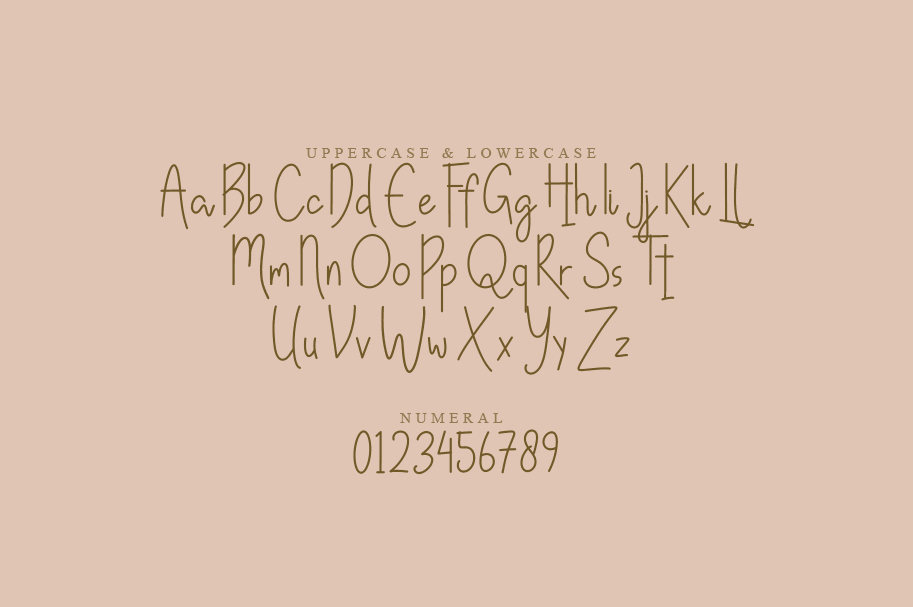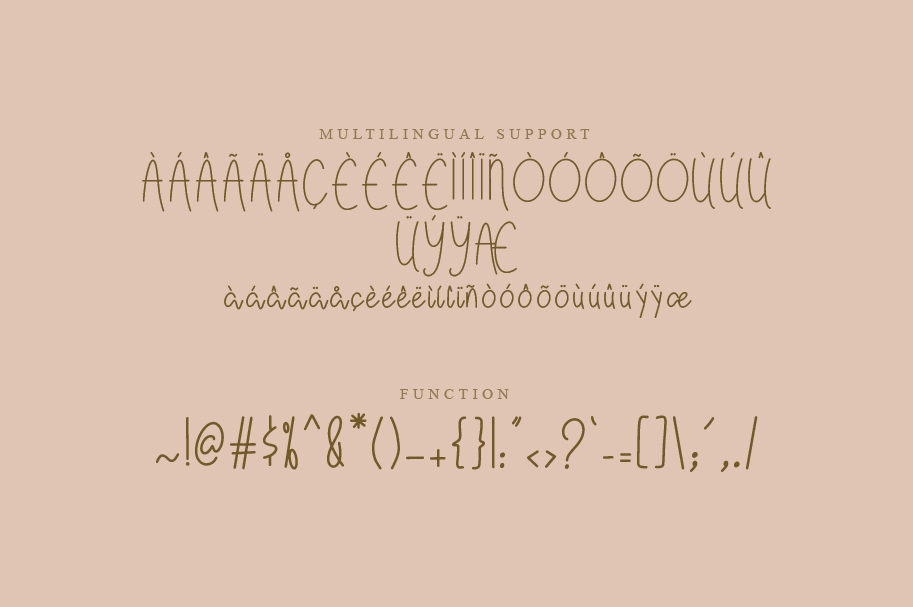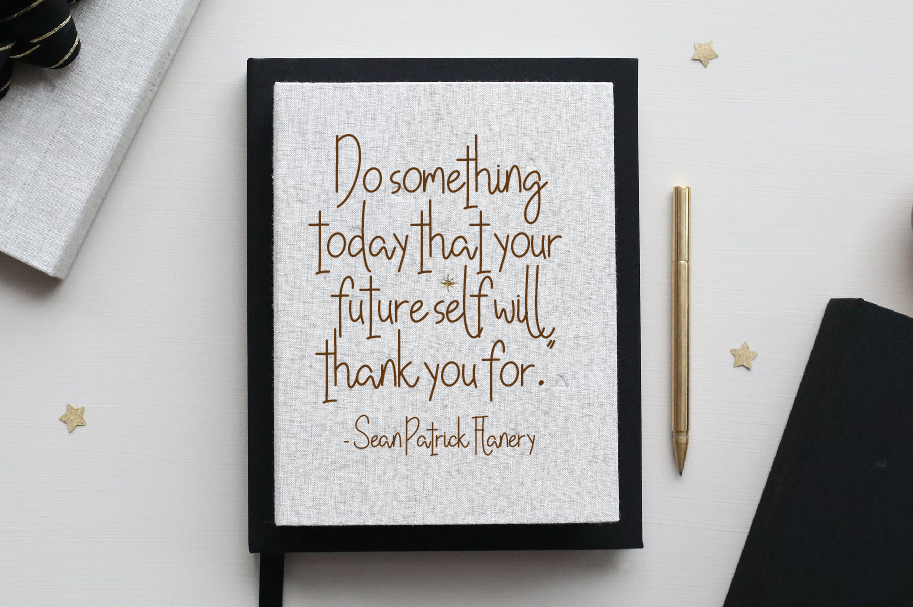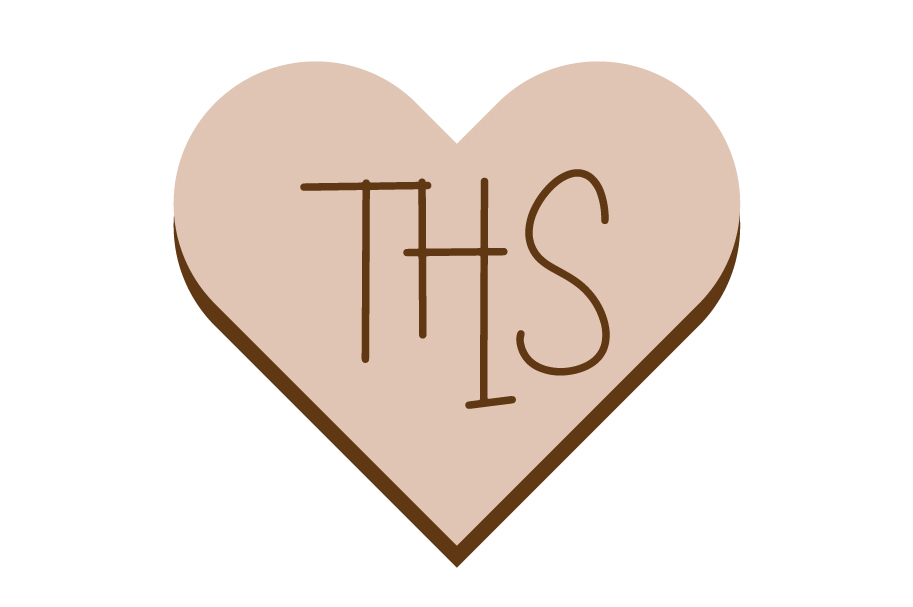
Rughle Font
Rughle Handwritten Font
This is a slim and endless handwritten font. It is the best choice for creating eye catching logos, branding and quotes. Every letter has a unique and beautiful touch, which will make your design come alive!